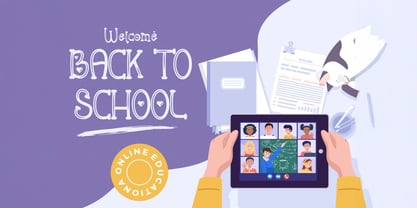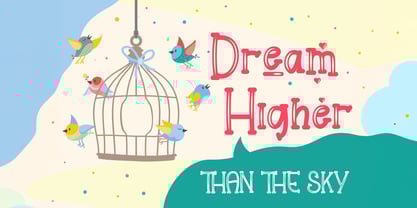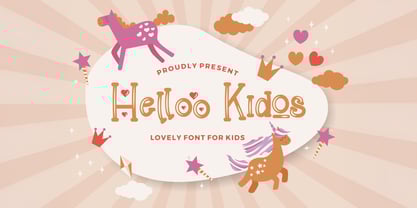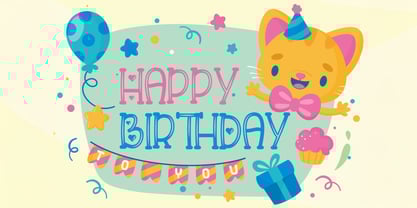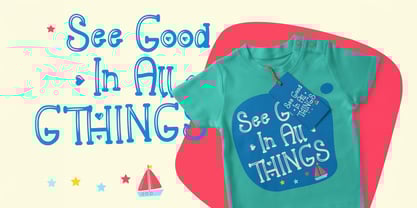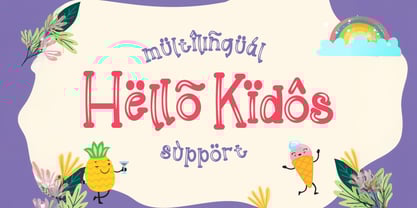
Helloo Kidos
by Stringlabs Creative Studio
The Helloo Kidos Font Family was designed by Virgiawan Listanto and published by Stringlabs Creative Studio. Helloo Kidos contains 1 styles. More about this family
Bring a fun, lively vibe to your designs with Helloo Kidos, a playful and quirky display font that is perfect for adding personality to your creative projects. Helloo Kidos effortlessly combines boldness and whimsy, making it perfect for designs that stand out with character and charm.
Designers: Virgiawan Listanto
Foundry: Stringlabs Creative Studio
Helloo Kidos